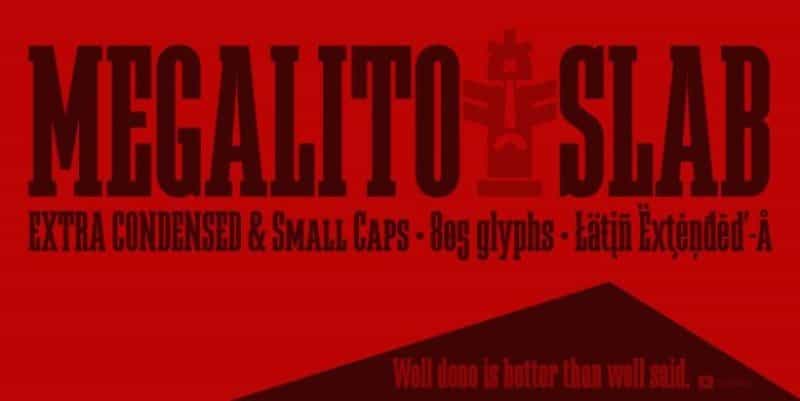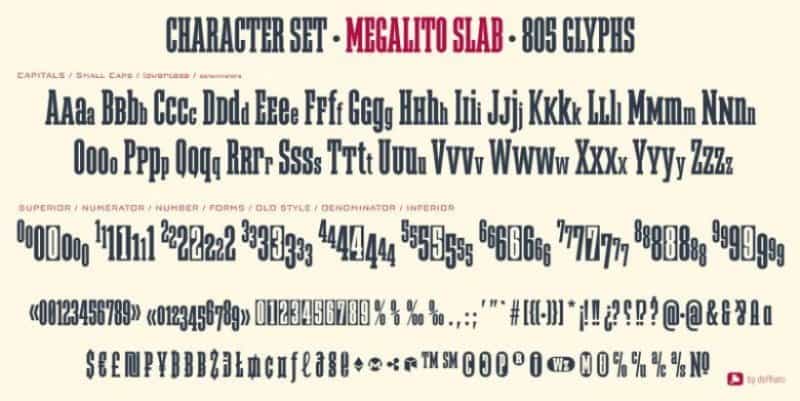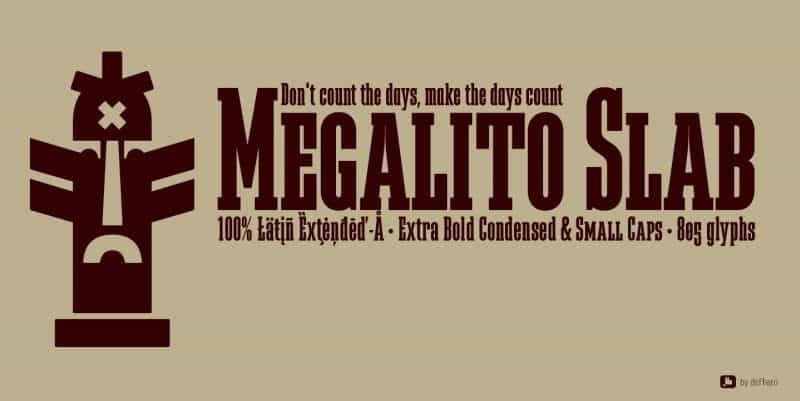
Megalito Slab Serif is a display font of geometric construction, very vertical and with extra condensed proportion for the creation of large titles with significant savings in horizontal space. It has an extended character table (805 glyphs) that includes small letters, 7 numeral sets, fractions dynamics with numbers and letters, collection of currency symbols, ligatures alternative letters etc.